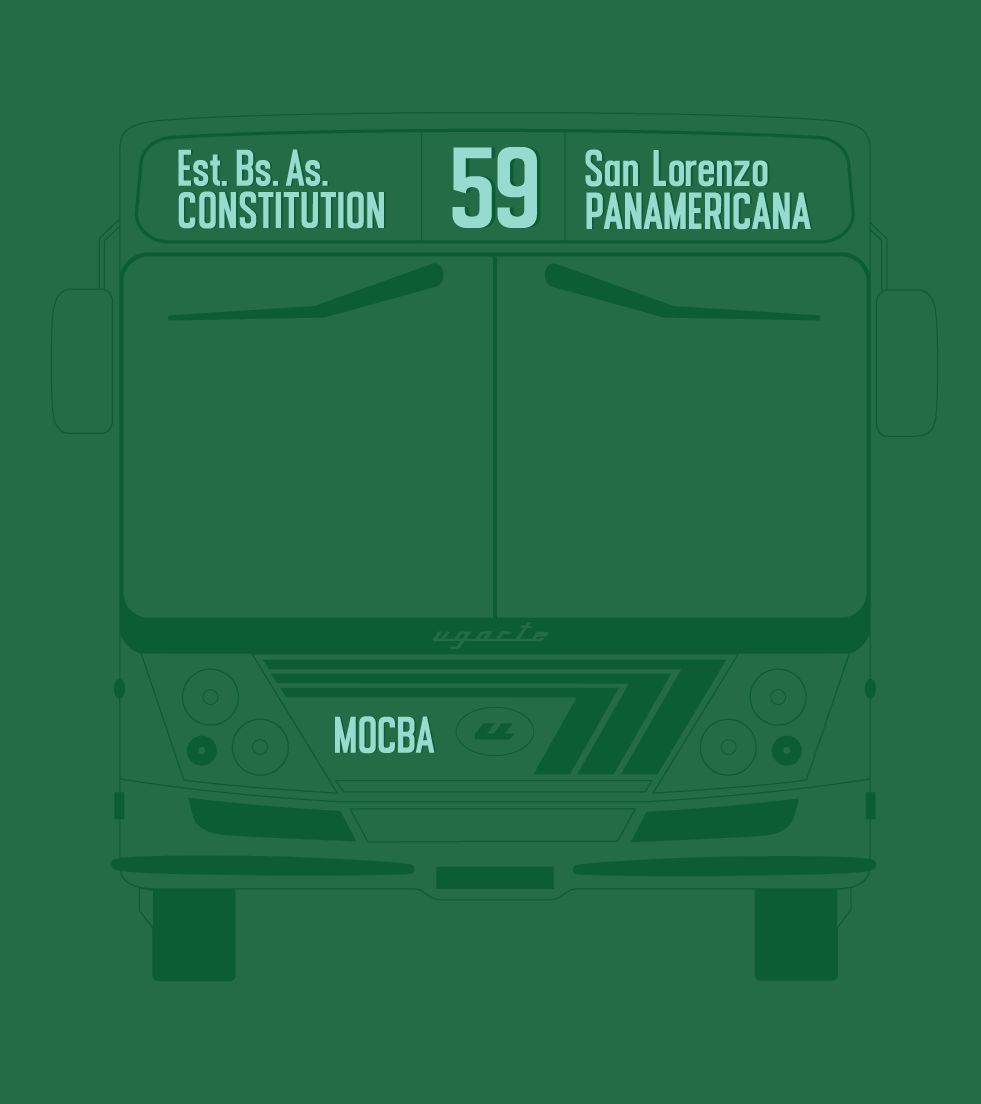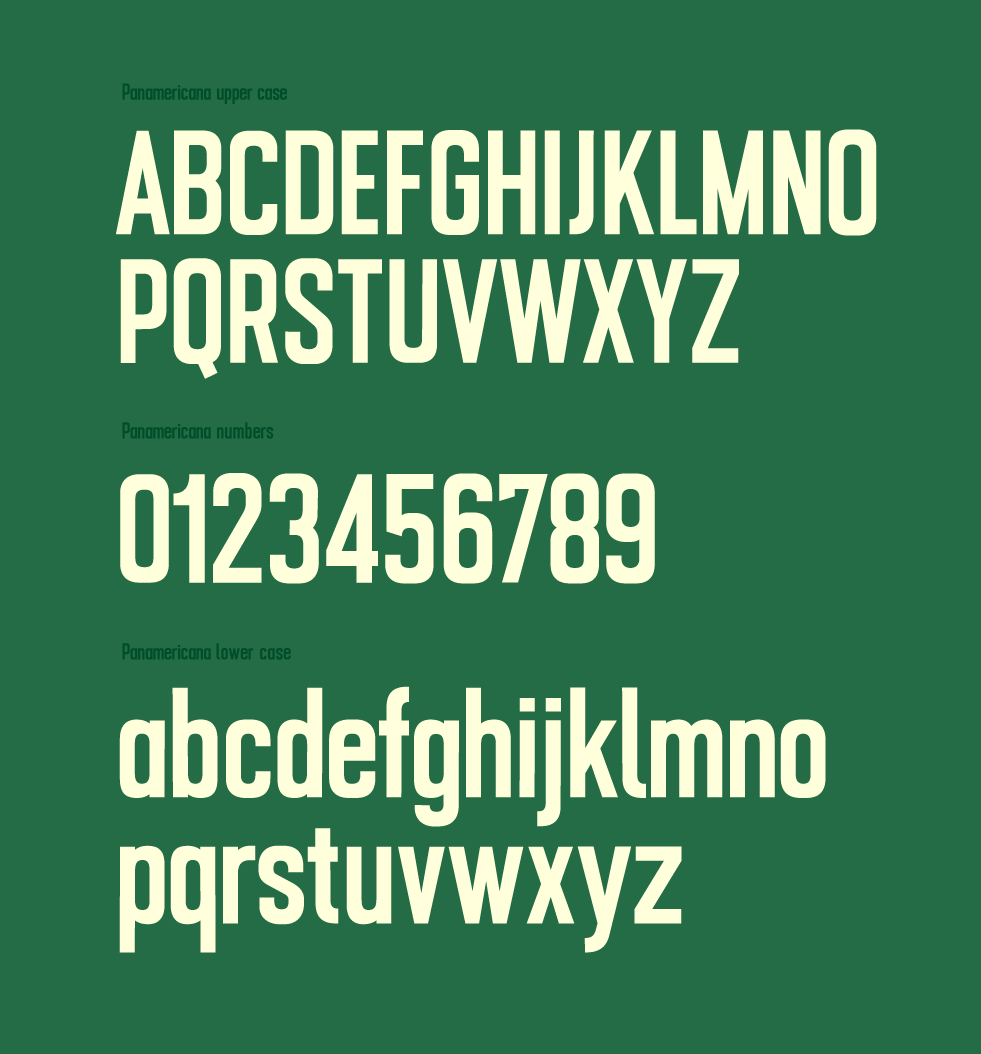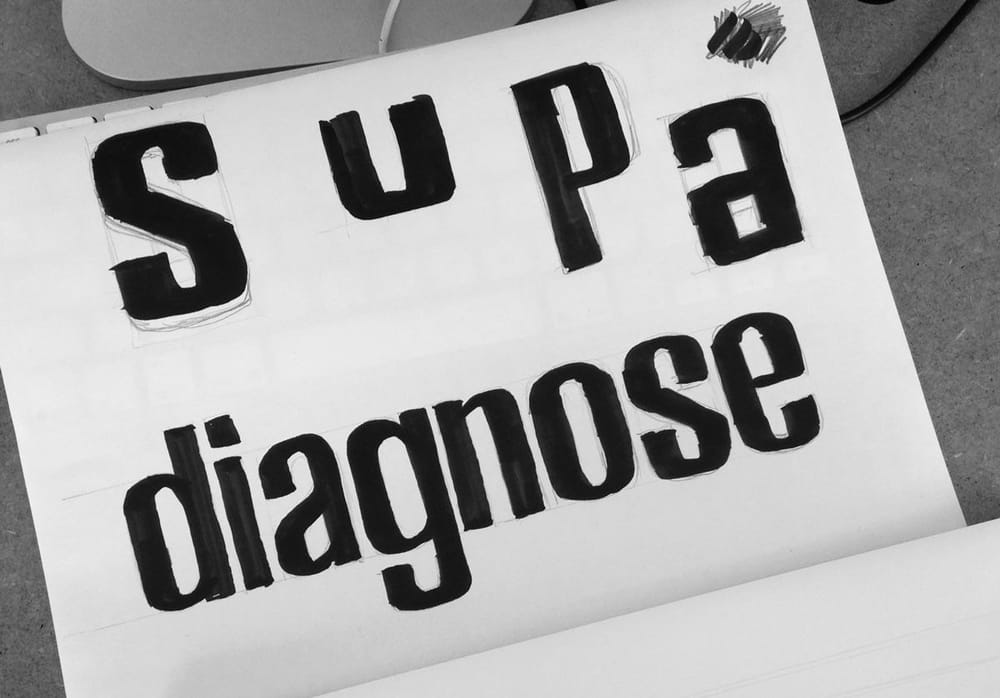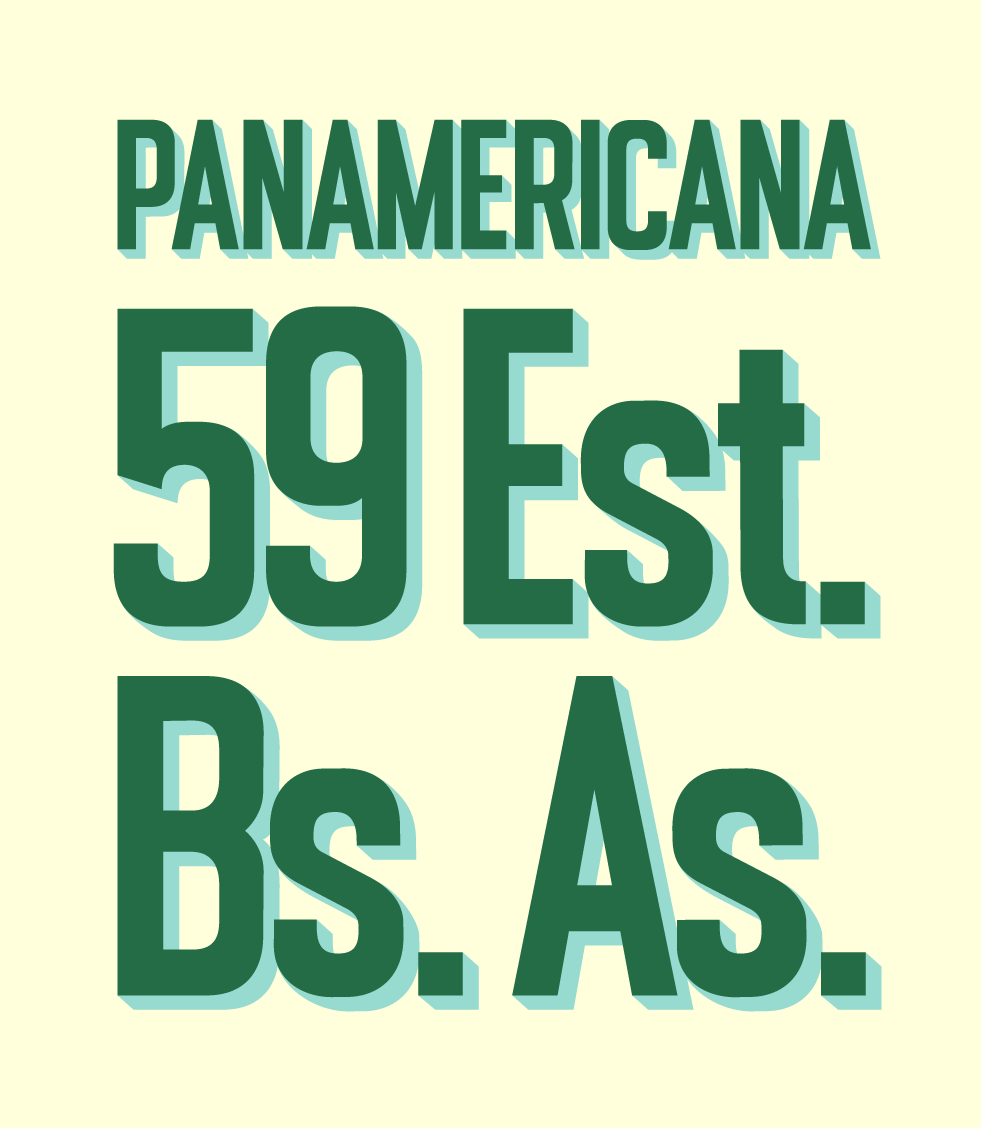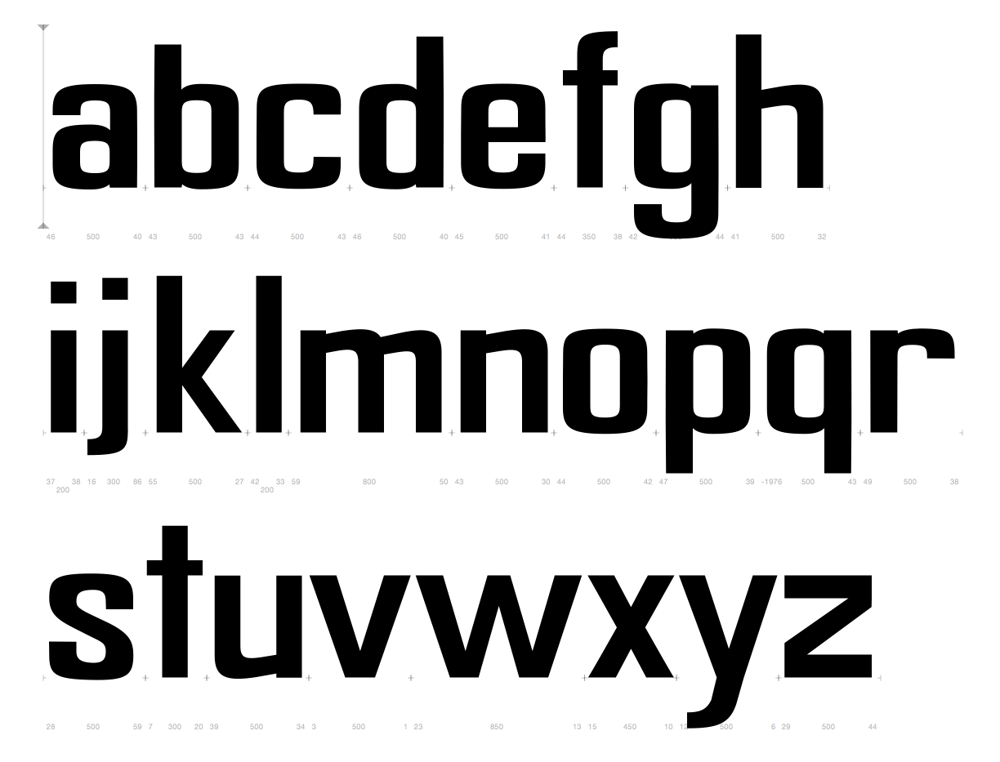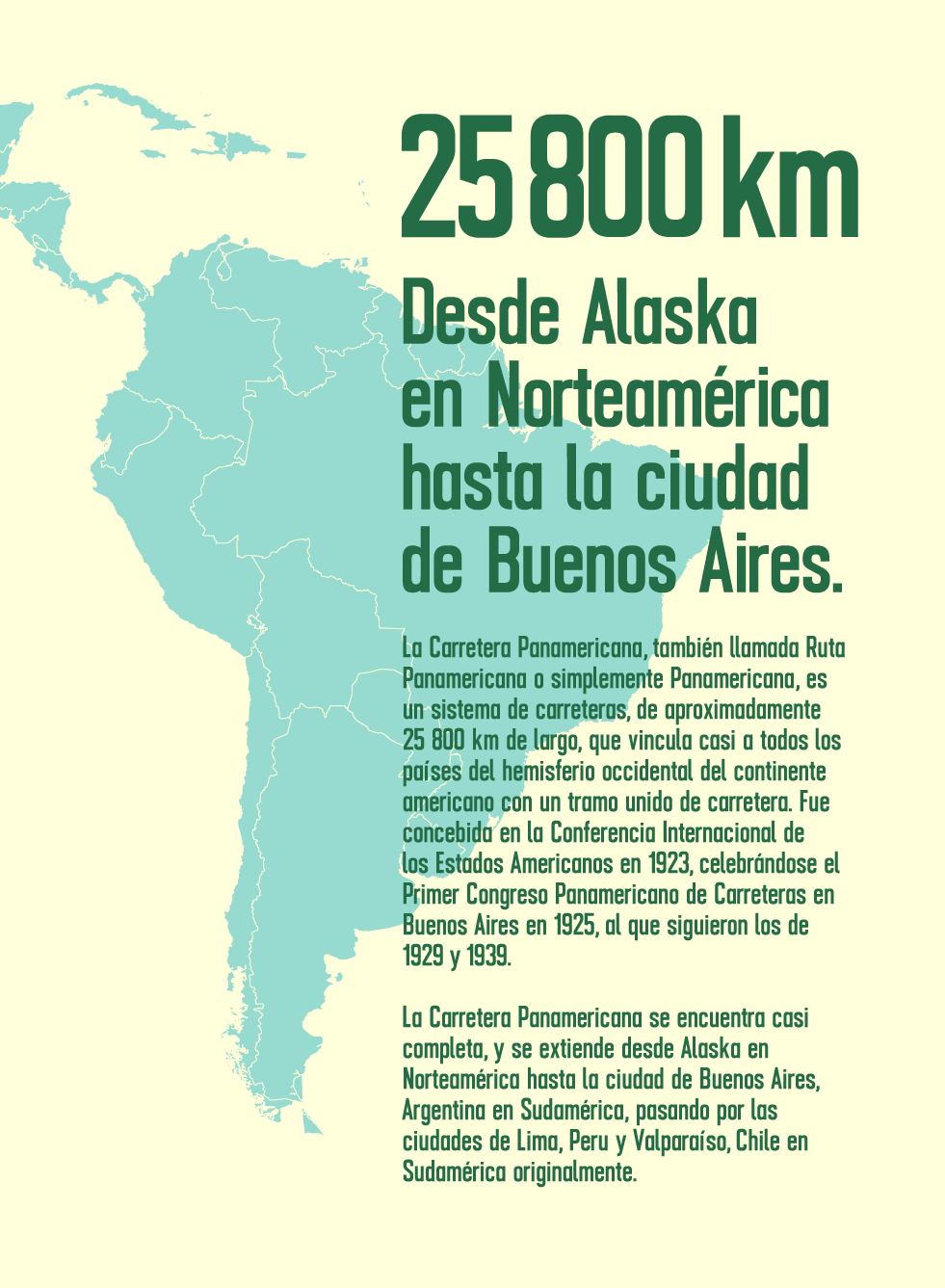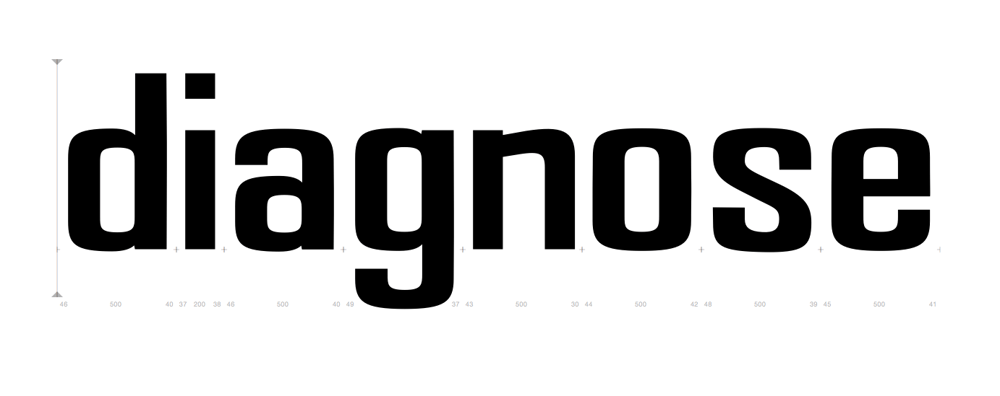
Condensend typeface
My inspiration was actually the sign of an autobus in Buenos aires. I really like the condensed edged letters on it but since it only has upper cases I just inventet the lower cases.
Here is my first sketch:
I actually sketched a lot in the beginning, I used a copic sketch pen to fill out the letters quickly. My experience was that using a brush pen is best for me since than I don't get stuck to much in the details (which I usually do).
However it turned out that on the computer I changed my design a bit more into a less condensed form, it just happend in the process...
Here is the whole alphabet until now:
I think the diagonal forms need a lot more work and also the spacing. Actually I'm not that satisfied with the form since it turned out a bit to round and less condensend.
Well I guess I go back to sketch, I might start with the uppercases and also numbers would be fun and then adjust the lower cases.
Final version and posters